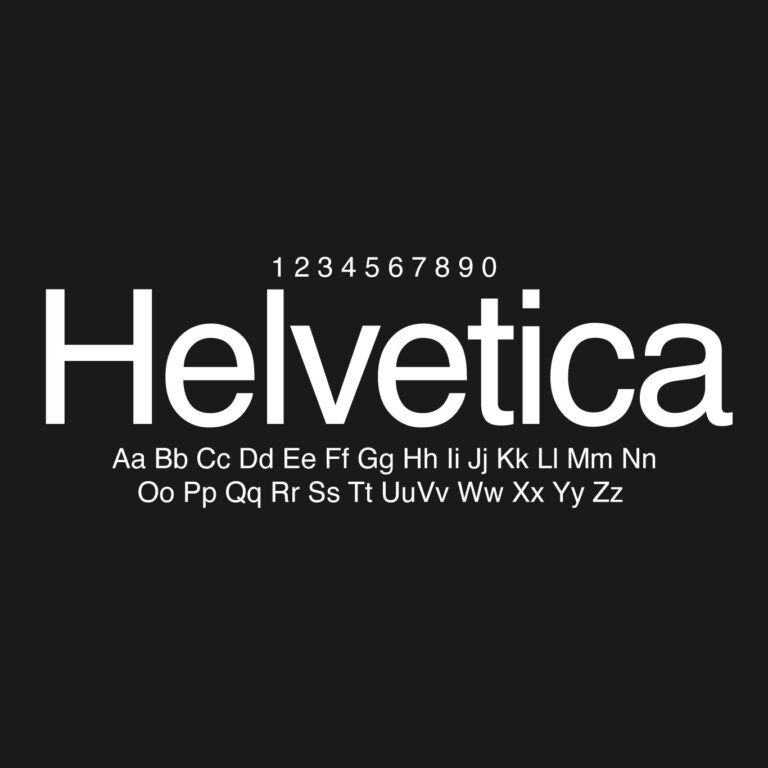
Switzerland, 1957
Helvetica was born as Neue Haas Grotesk at the Haas Type Foundry in Münchenstein, Switzerland. Foundry director Eduard Hoffmann wanted a cleaner, more rational update of the 19th-century grotesque sans-serifs — above all Berthold’s Akzidenz-Grotesk, the workhorse of Swiss design — and hired freelance designer Max Miedinger to draw it. Their collaboration worked like a relay: Hoffmann critiqued, Miedinger redrew, letter by letter, until the design achieved what Swiss modernism prized most — a typeface so neutral it imposed no meaning of its own on the words it carried.
The name came three years later, and it was pure marketing. When German partner D. Stempel AG prepared the typeface for international sale in 1960, “Neue Haas Grotesk” sounded hopelessly provincial. The proposed alternative — “Helvetia,” simply naming it after Switzerland — struck Hoffmann as absurd (you can’t name a typeface after a country, he reasoned), so they settled on Helvetica: “the Swiss one.” Selling Swiss precision by name turned out to be one of the great branding decisions in design history.
The Face of Everything
What followed was the most complete corporate takeover any typeface has managed. American Airlines, BMW, Lufthansa, Nestlé, Panasonic, Jeep, Kawasaki, and dozens more built identities on Helvetica; the New York City Subway adopted it for its signage system; the U.S. government put it on federal tax forms and NASA’s space shuttle orbiters. Apple made it the heart of its ecosystem for years, using Helvetica as the iOS system font until its custom San Francisco replaced it in 2015. Gary Hustwit’s 2007 documentary “Helvetica” — timed to the font’s fiftieth birthday — turned the debate about all this ubiquity into a genuinely popular film, splitting talking heads between modernists who saw perfection and critics who saw, in designer Erik Spiekermann’s words, a font like air: everywhere, and invisible.
Helvetica or Helvetica Neue?
This page covers the original family — the direct descendant of the 1957 design, with the quirks and inconsistencies it accumulated as it was adapted across metal, photo, and digital typesetting. If you want the cleaned-up, systematized version — reworked in 1983 with unified weights and numeric naming — that’s Helvetica Neue, which we host as a separate download. The short version: Neue is the safer choice for large design systems with many weights; the original has a slightly warmer, less clinical feel and remains the version many longtime brand guidelines still specify. For the deeper story of the 1983 rework, see our Helvetica Neue page.
Font Type: Sans Serif
Category: Neo-Grotesque Sans Serif
Visual Style: Neutral, rational, Swiss, timeless
Best For: Branding, signage, editorial design, interfaces and any application demanding maximum neutrality
Designers: Max Miedinger with Eduard Hoffmann
Foundry: Haas Type Foundry (now Monotype)
Released: 1957 (renamed Helvetica in 1960)
Note that Helvetica uses obliques — slanted versions of the upright letters — rather than true italics, a hallmark of neo-grotesque design. Light works for elegant display settings, Regular for text and interfaces, Bold for headlines and emphasis.
Helvetica Neue is the systematized successor, and Neue Haas Grotesk (Christian Schwartz’s 2010 revival) restores the warmth of the 1957 original. Arial is the famous metric-compatible stand-in bundled with Windows. Akzidenz-Grotesk is the 19th-century ancestor. For free, openly licensed alternatives, Inter and Roboto cover the modern UI territory, while Liberation Sans matches Arial’s (and therefore Helvetica’s) metrics for document compatibility.